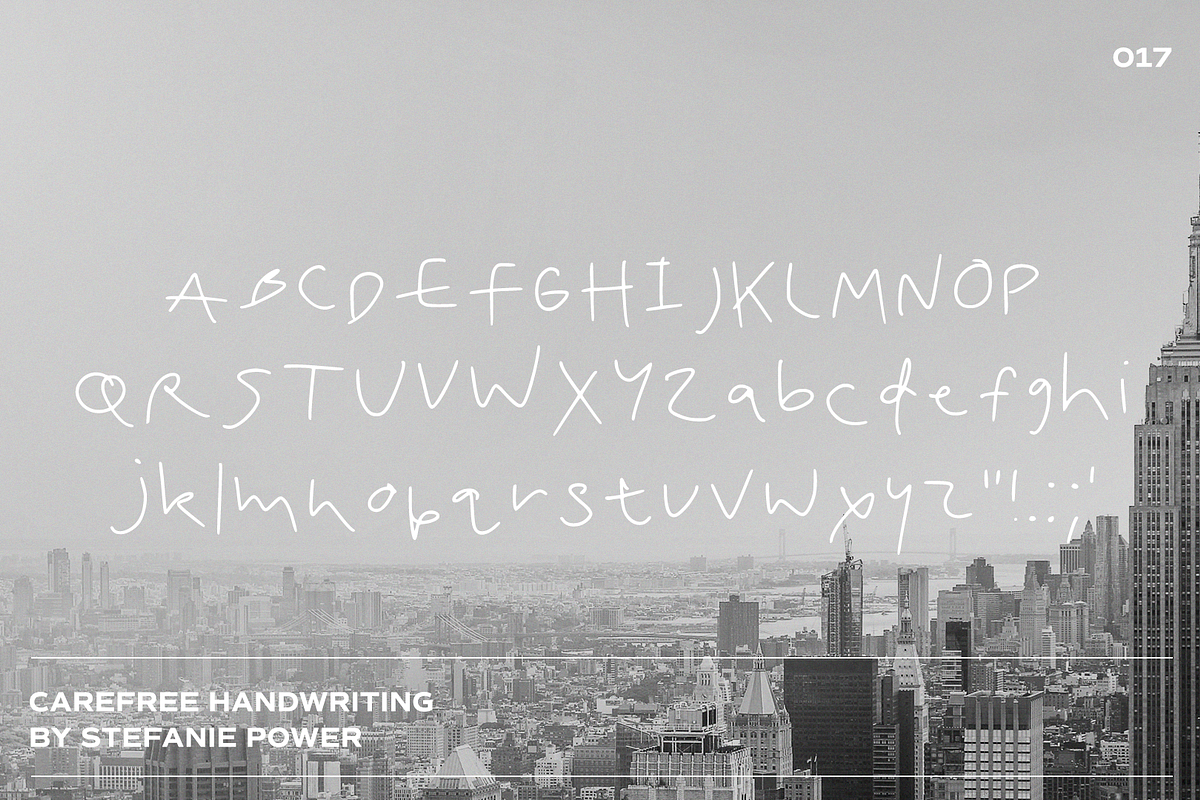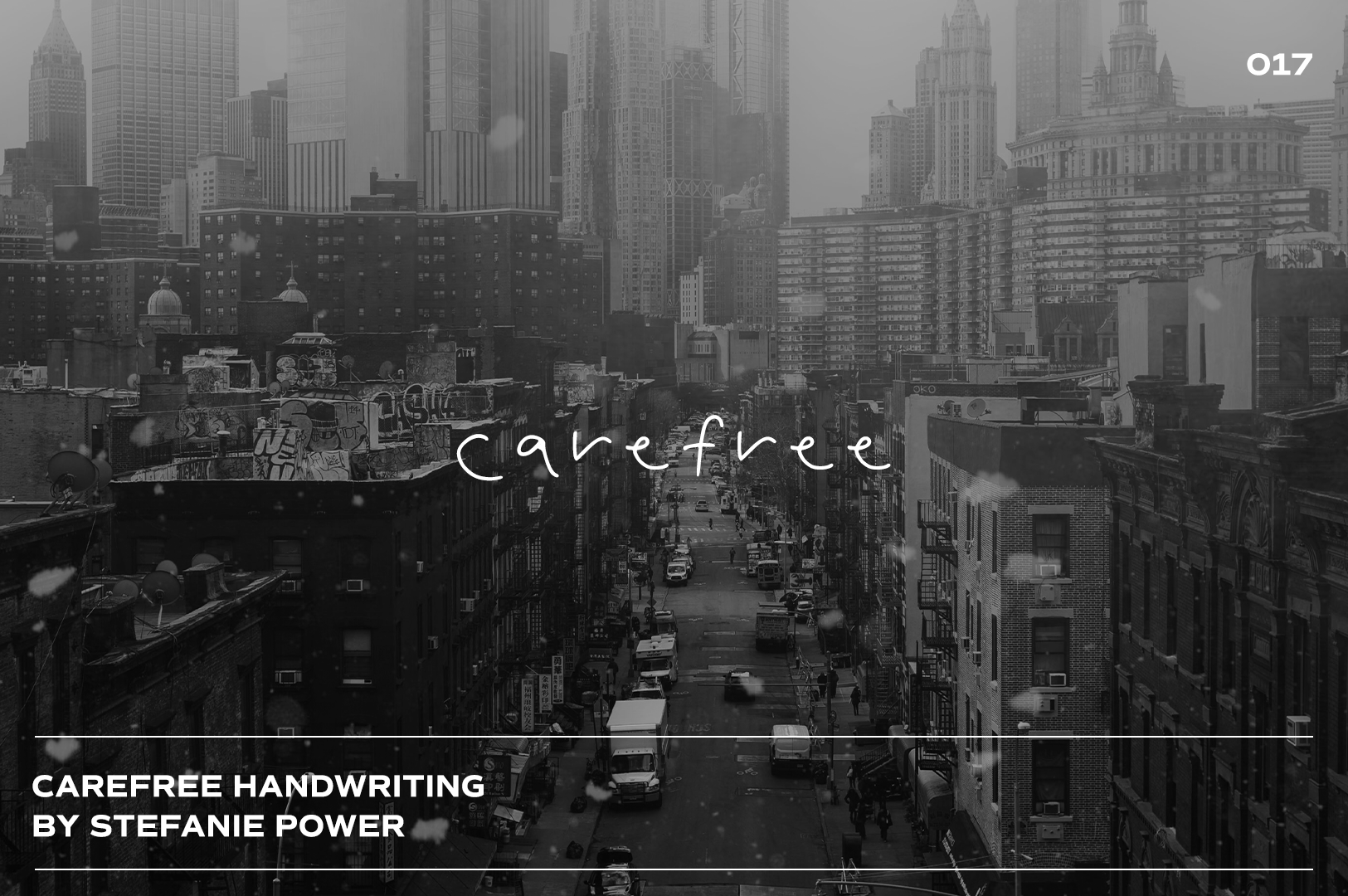
carefree Handwriting | Font
Introducing 'carefree' - a fun and carefree font
carefree Handwriting • A handwritten script font containing upper & lowercase characters and a range of punctuation and numbers.